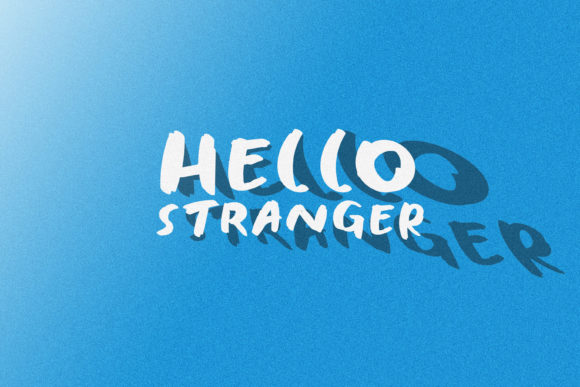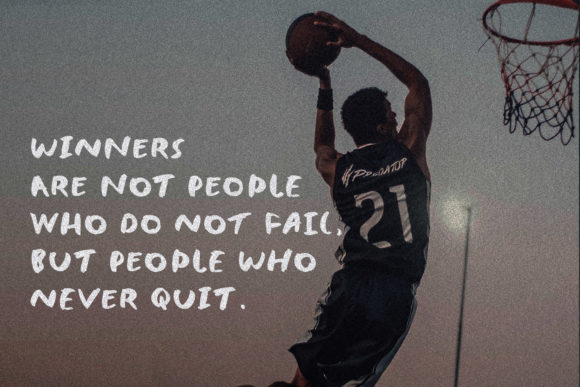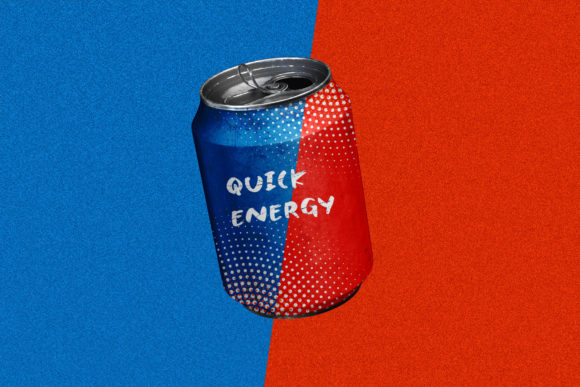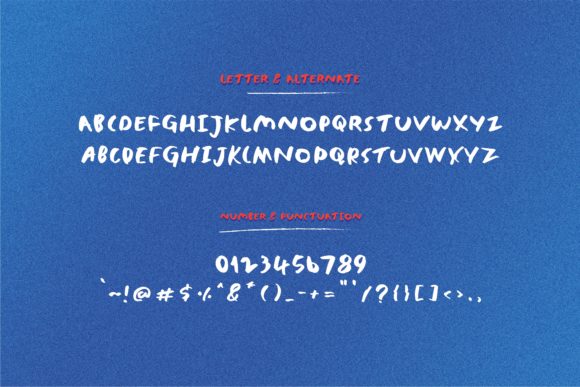
Introducing Chaser Font: The Ultimate Display Font for Creative Projects
Are you tired of using the same old fonts for your design projects? Look no further than Chaser Font, a fun and trendy display font that’s perfect for making a statement. Whether you’re a designer, crafty DIY enthusiast, or small business owner, Chaser Font is the ideal choice for adding a touch of personality to your work.
What is Chaser Font?
Chaser Font is a display font designed to grab attention and add a dash of excitement to your projects. Its unique and playful style makes it perfect for a wide range of applications, from posters and flyers to headline ads, logos, branding, business cards, shirts, mugs, and more!
Key Features of Chaser Font
- Fun and Trendy: Chaser Font is designed to be eye-catching and fun, making it perfect for projects that require a playful touch.
- Highly Versatile: Use Chaser Font for a wide range of projects, from print materials like posters and business cards to digital applications like social media graphics and website headers.
- Easy to Read: Despite its playful style, Chaser Font is easy to read, making it perfect for headlines, titles, and short phrases.
- Customizable: Chaser Font comes in a range of styles and weights, allowing you to customize it to suit your project’s needs.
Chaser Font is a dream come true for designers and crafters who want to add a personal touch to their work. Whether you’re creating:
- Posters and Flyers: Use Chaser Font to create eye-catching posters and flyers that grab attention.
- Logos and Branding: Add a touch of personality to your logo and branding with Chaser Font.
- Business Cards: Stand out from the crowd with custom business cards featuring Chaser Font.
- DIY Projects: Use Chaser Font to add a personal touch to your DIY projects, such as custom shirts, mugs, and more.
Why Choose Chaser Font?
With so many fonts to choose from, why choose Chaser Font? Here are just a few reasons:
- Unique Style: Chaser Font has a unique and playful style that’s sure to make your projects stand out.
- High-Quality: Chaser Font is a high-quality font that’s designed to look great in any application.
Tips for Using Chaser Font
Here are a few tips for getting the most out of Chaser Font:
- Use it Sparingly: Chaser Font is a bold font, so use it sparingly to avoid overwhelming your design.
- Experiment with Colors: Chaser Font looks great in a range of colors, so don’t be afraid to experiment and find the perfect hue for your project.
- Pair it with Other Fonts: Chaser Font pairs well with a range of other fonts, so try pairing it with a clean sans-serif font for a contrasting look.
Chaser Font is a fun and trendy display font that’s perfect for designers, crafters, and small business owners who want to add a touch of personality to their work. With its unique style, high versatility, and ease of use, Chaser Font is the ideal choice for a wide range of projects. So why wait? Download Chaser Font today and start creating!